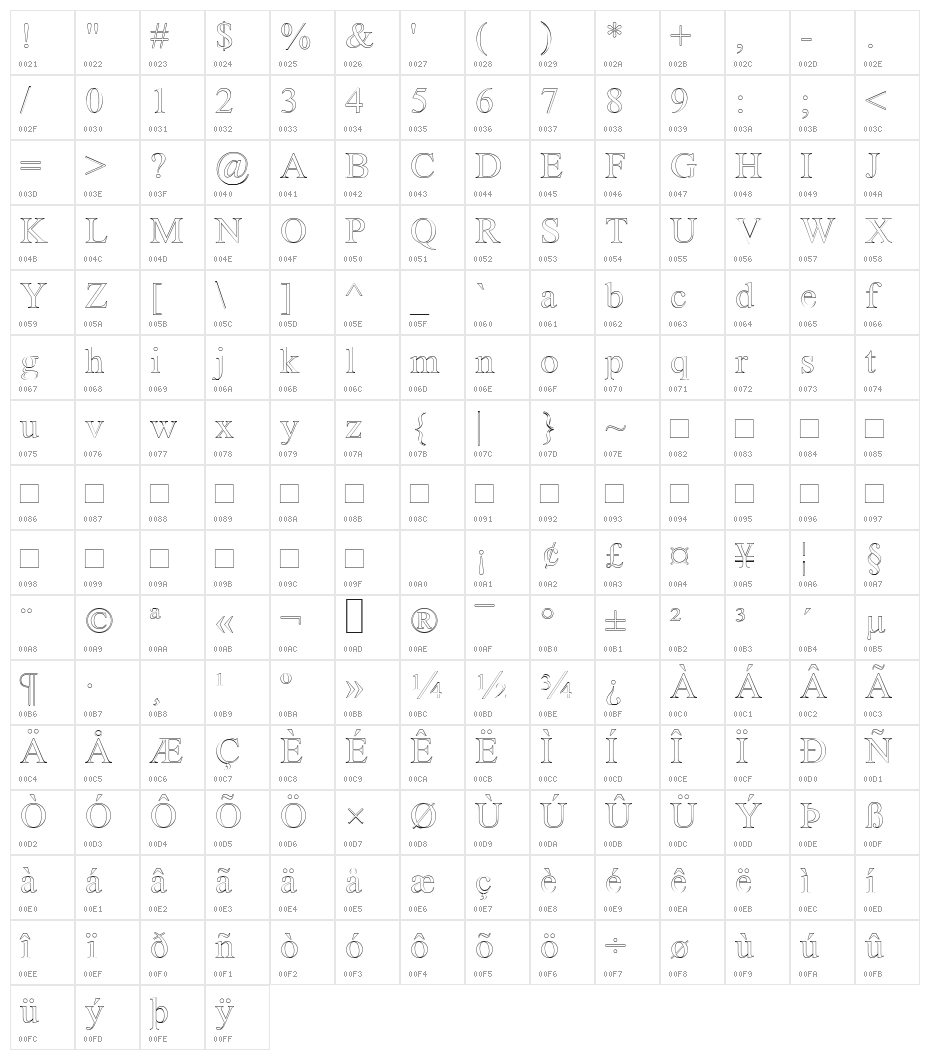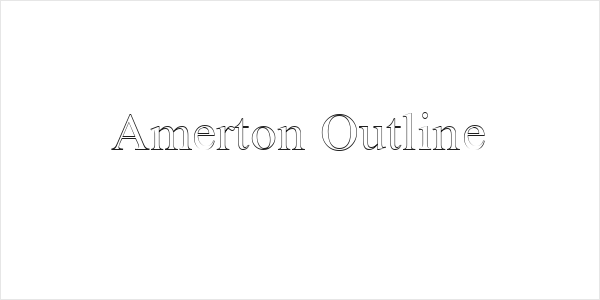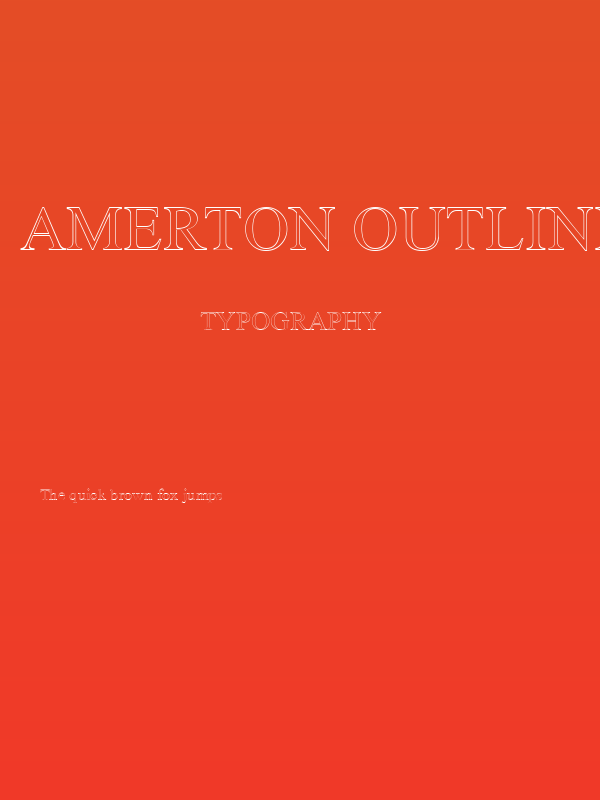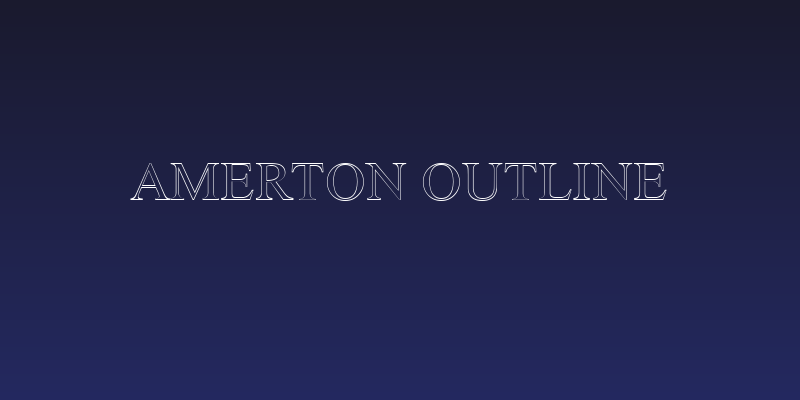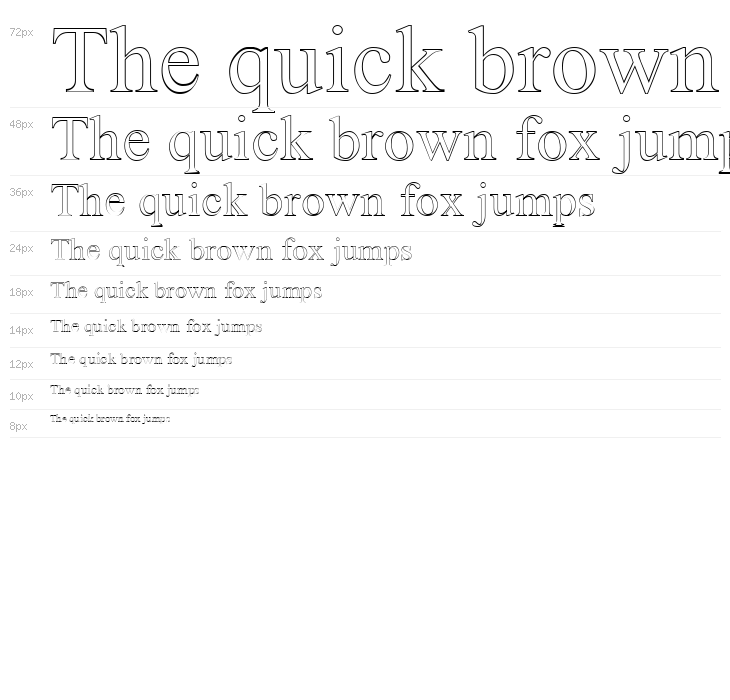
Amerton Outline Font
Amerton Outline Description
This font features a classic serif style with an outline design, giving it a unique and elegant appearance. The uppercase and lowercase letters maintain a traditional serif structure, while the outline effect adds a modern twist. The numerals and special characters are consistent with the overall design, ensuring a cohesive look across all text. The font's clean lines and balanced proportions make it suitable for a variety of design applications, from formal invitations to branding materials. Its outline nature allows for creative layering and color usage, enhancing its versatility.